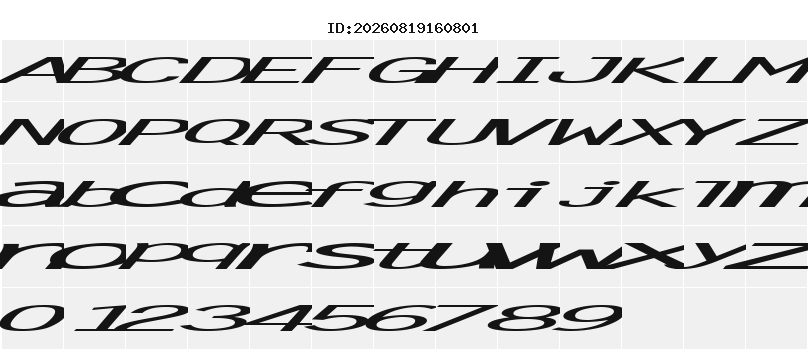
Significa Preview
• Font Name: Significa
• Font ID: Macromedia Fontographer 4.1.5 Significa
• Full Font Name: Significa
• Version: Macromedia Fontographer 4.1.5 27.11.2000
• PostScript Name: Significa
About Significa.ttf
Significa.ttf is a modern, elegant sans-serif font designed for ultimate readability and visual harmony. Perfect for branding, headlines, web design, and print materials.